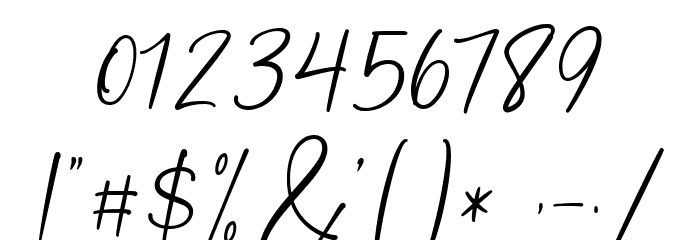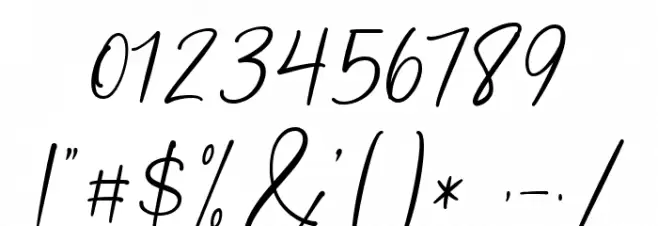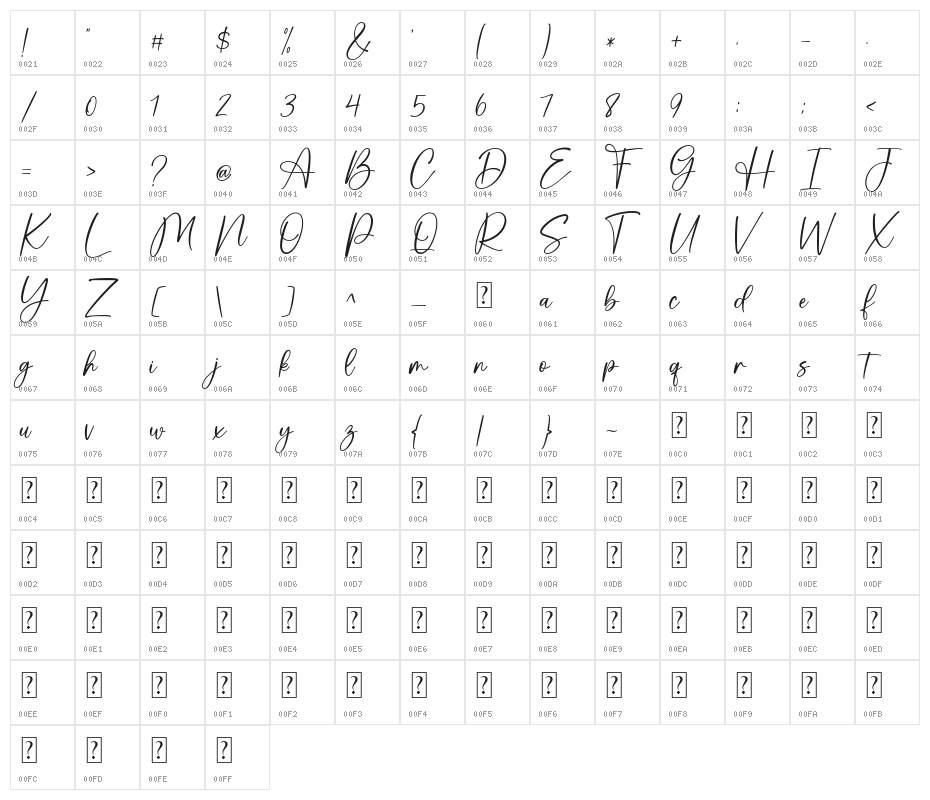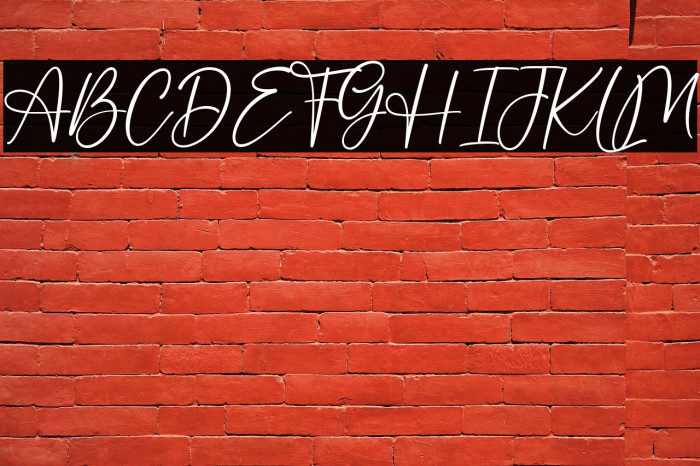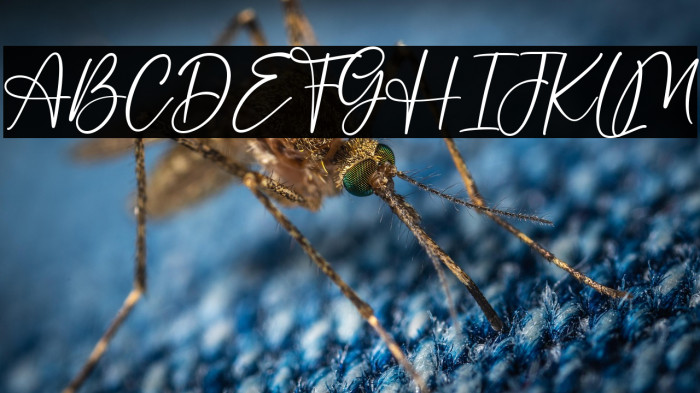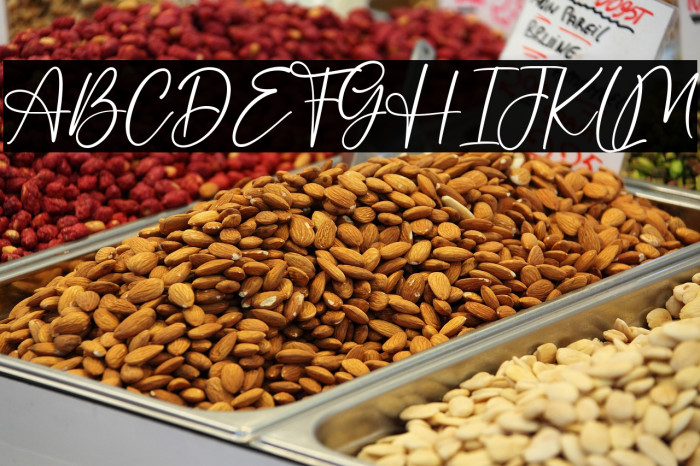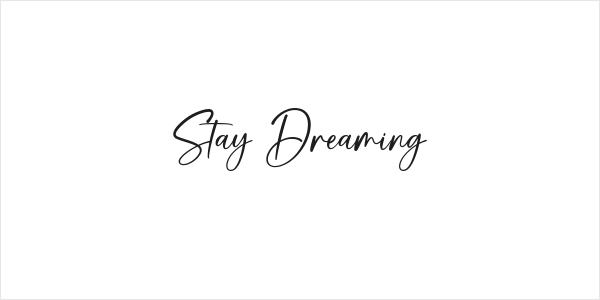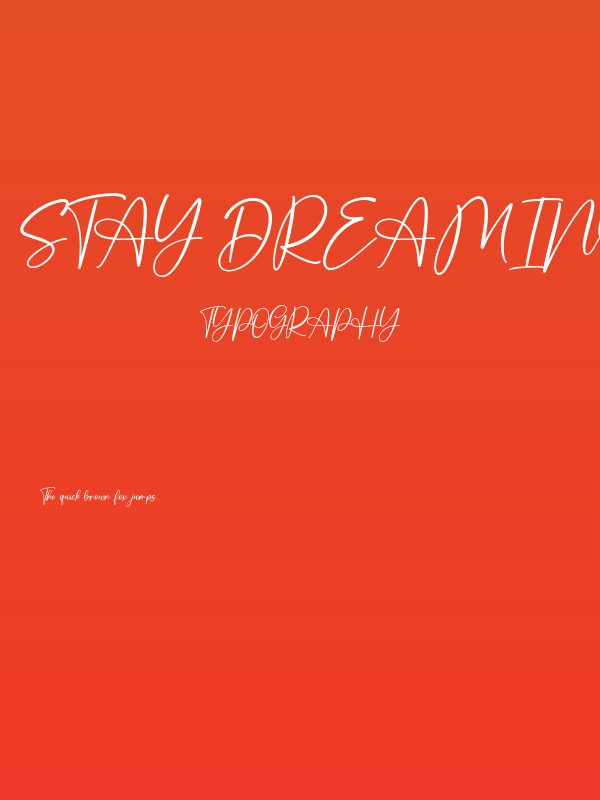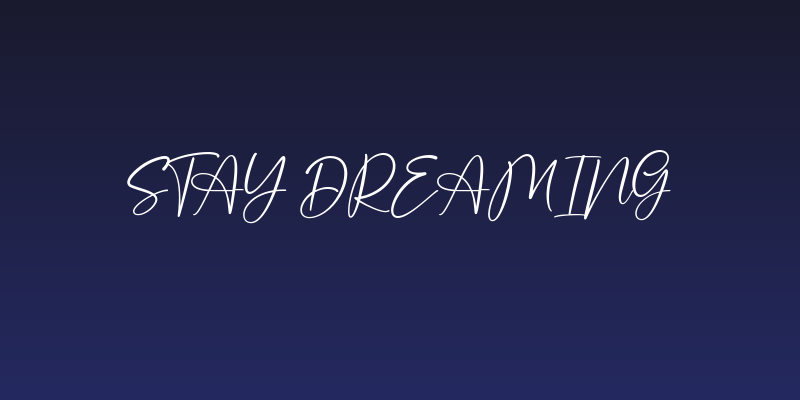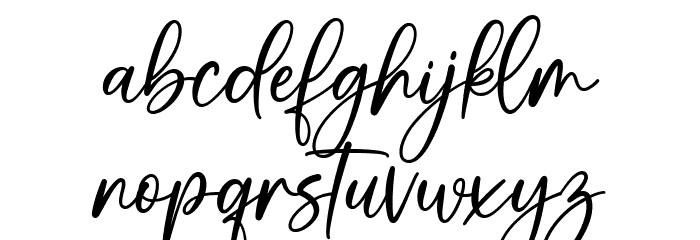
Stay Dreaming Font
Stay Dreaming Description
This font features a fluid, handwritten style that exudes elegance and a personal touch. The uppercase letters are tall and slightly narrow, with smooth curves and a consistent stroke width that gives them a refined appearance. The lowercase letters maintain a similar style, with some letters featuring distinctive loops and flourishes that add character and charm. The numerals are clear and legible, maintaining the same handwritten aesthetic. Special characters are thoughtfully designed to match the overall style, ensuring a cohesive look across all text. The font's flowing nature makes it ideal for projects that require a touch of sophistication and creativity.
A fluid, handwritten font with elegant curves and a personal touch from Uncategorized fonts.
- Font: Stay Dreaming
- Proposed Projects: Ideal for wedding invitations, greeting cards, personal branding, and artistic projects.
- Overall Style: Elegant, Artistic
- Use Case: Logos, Invitations, Artistic projects